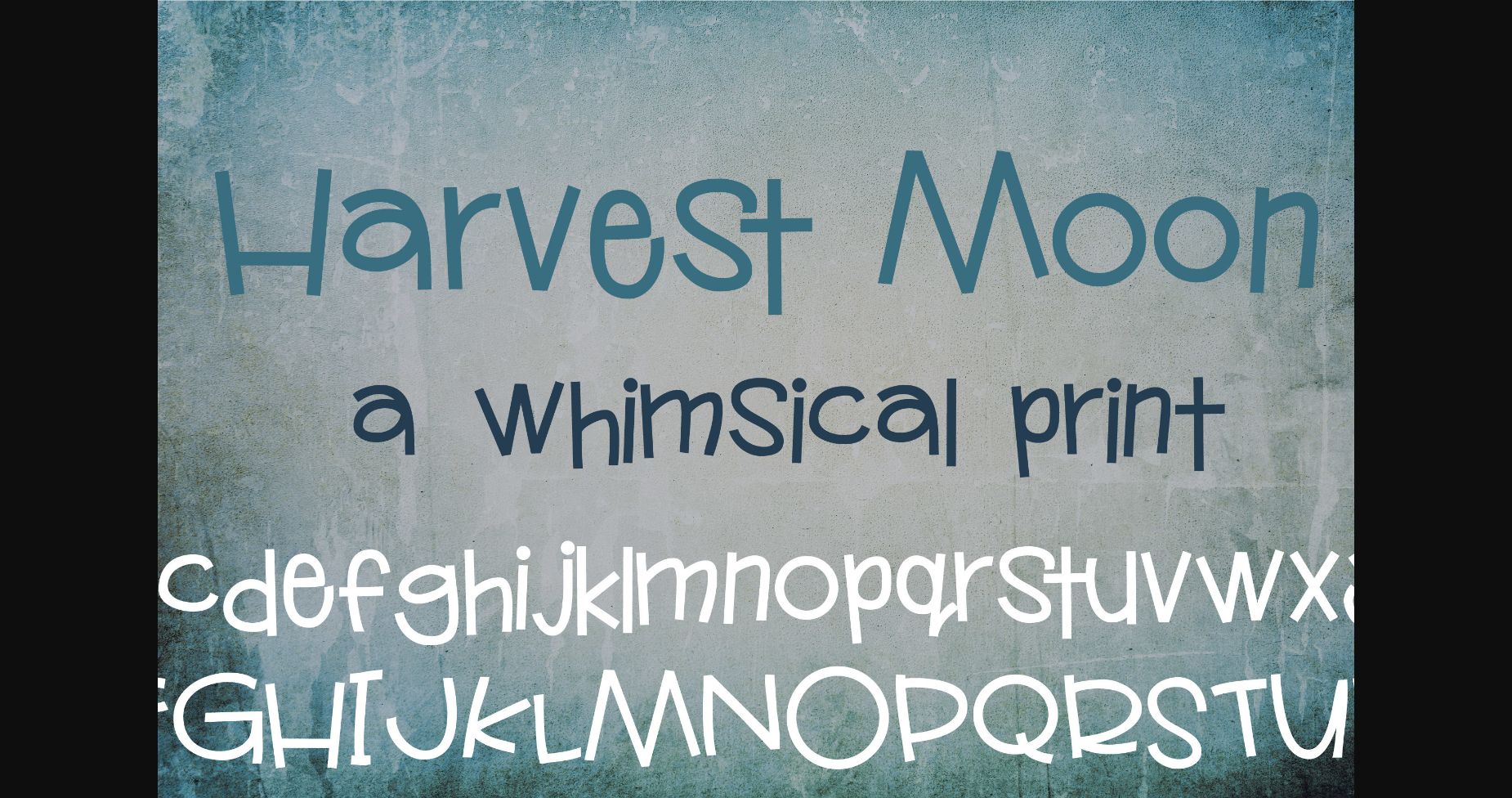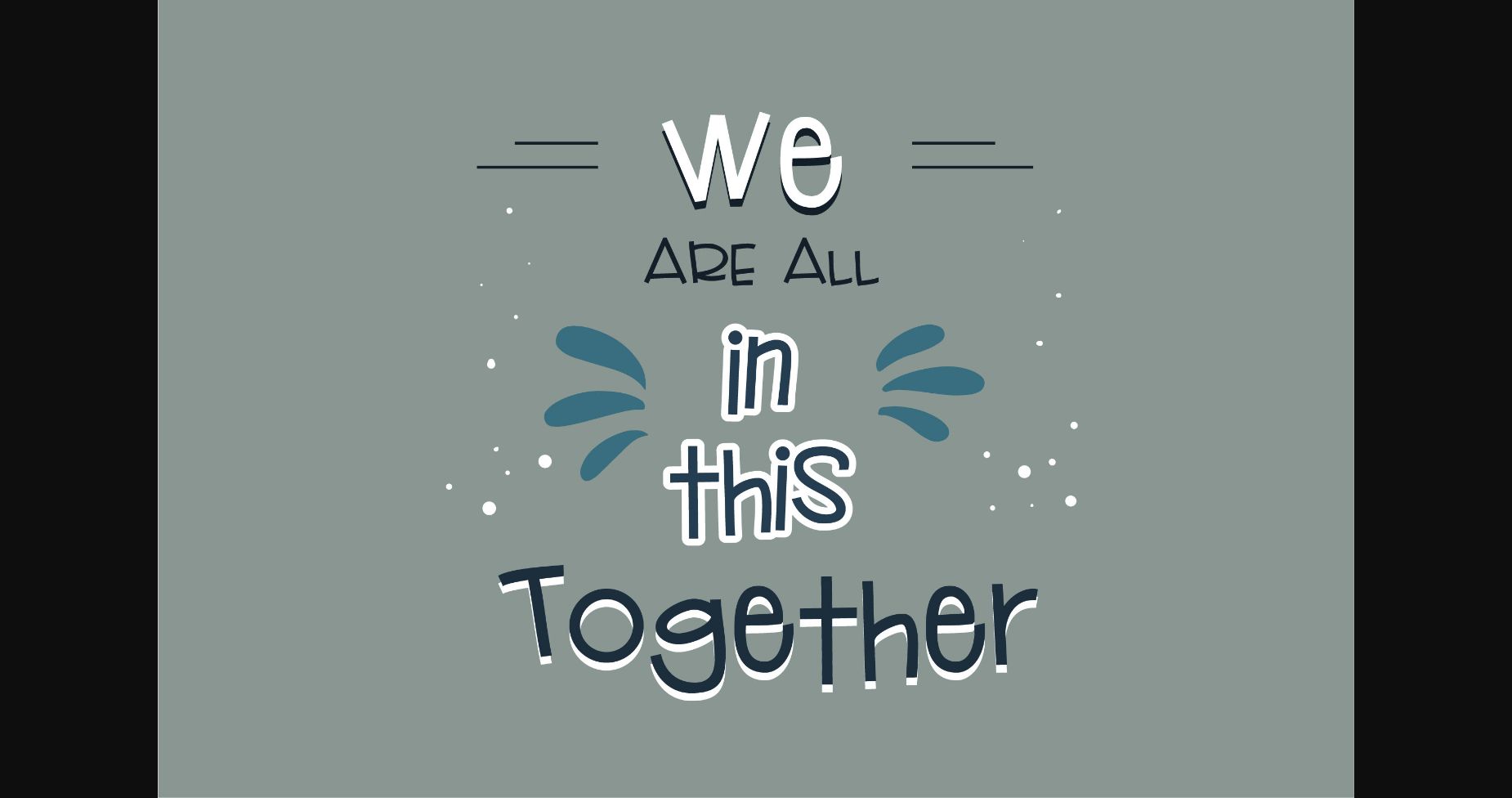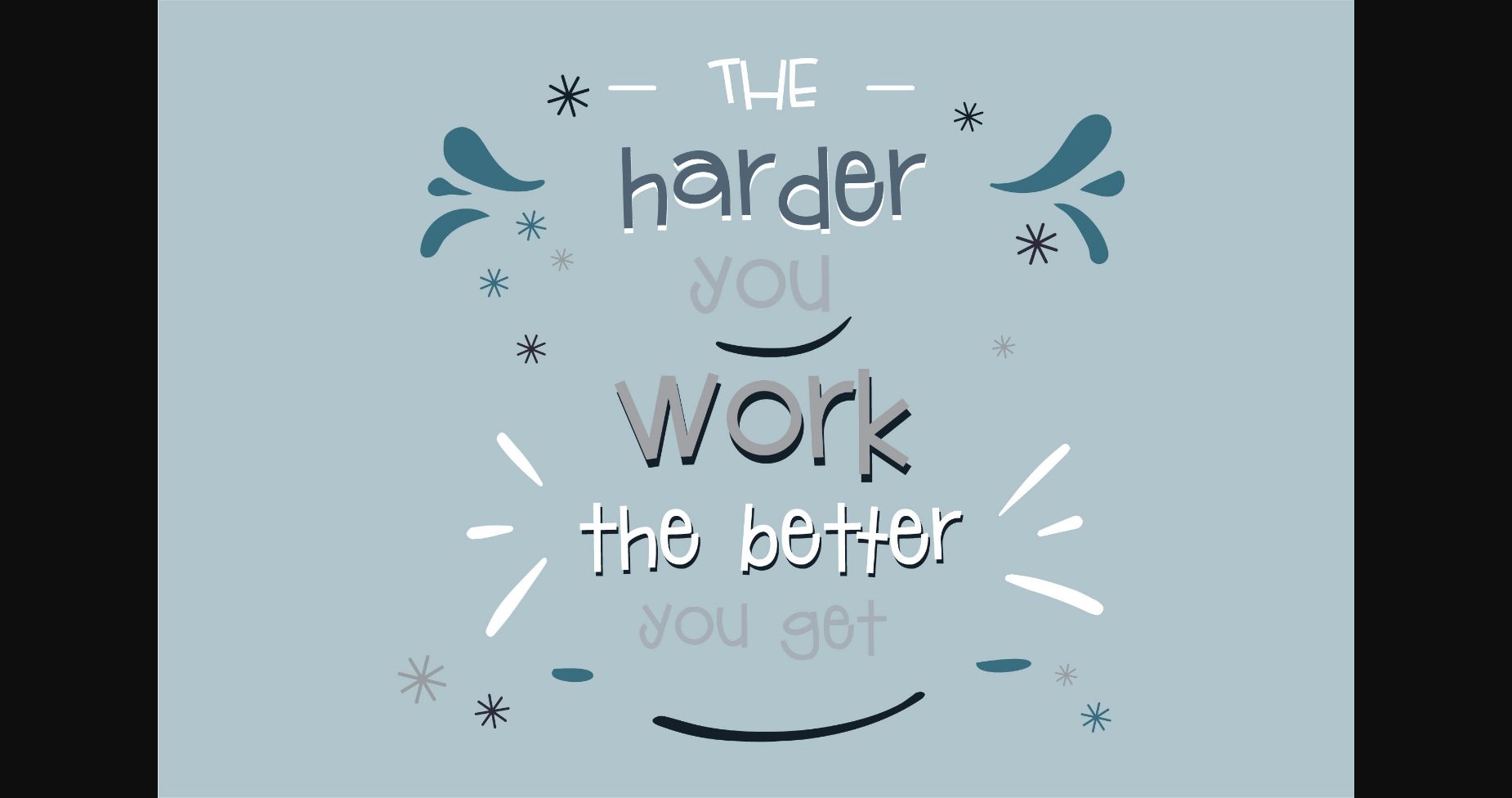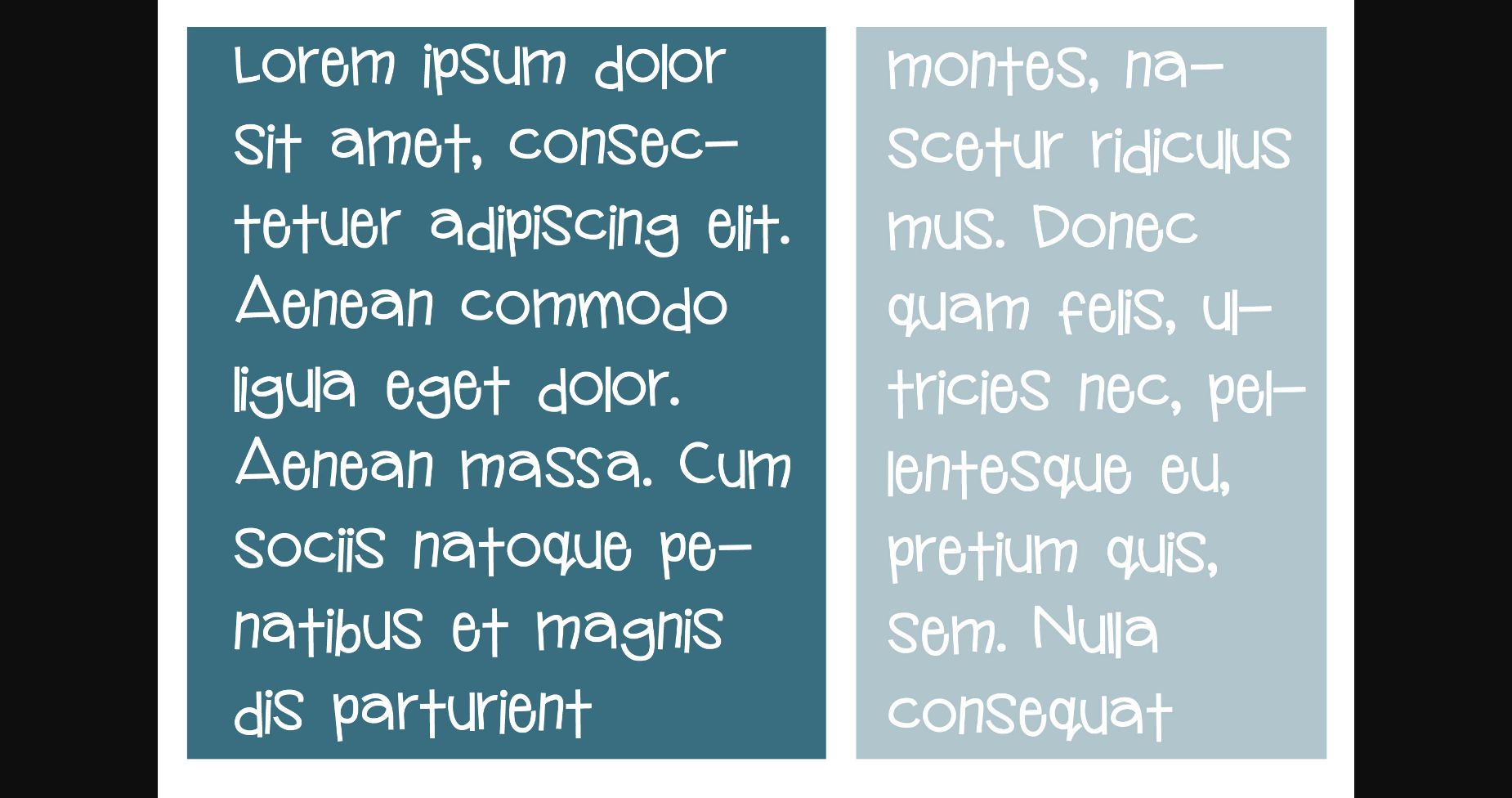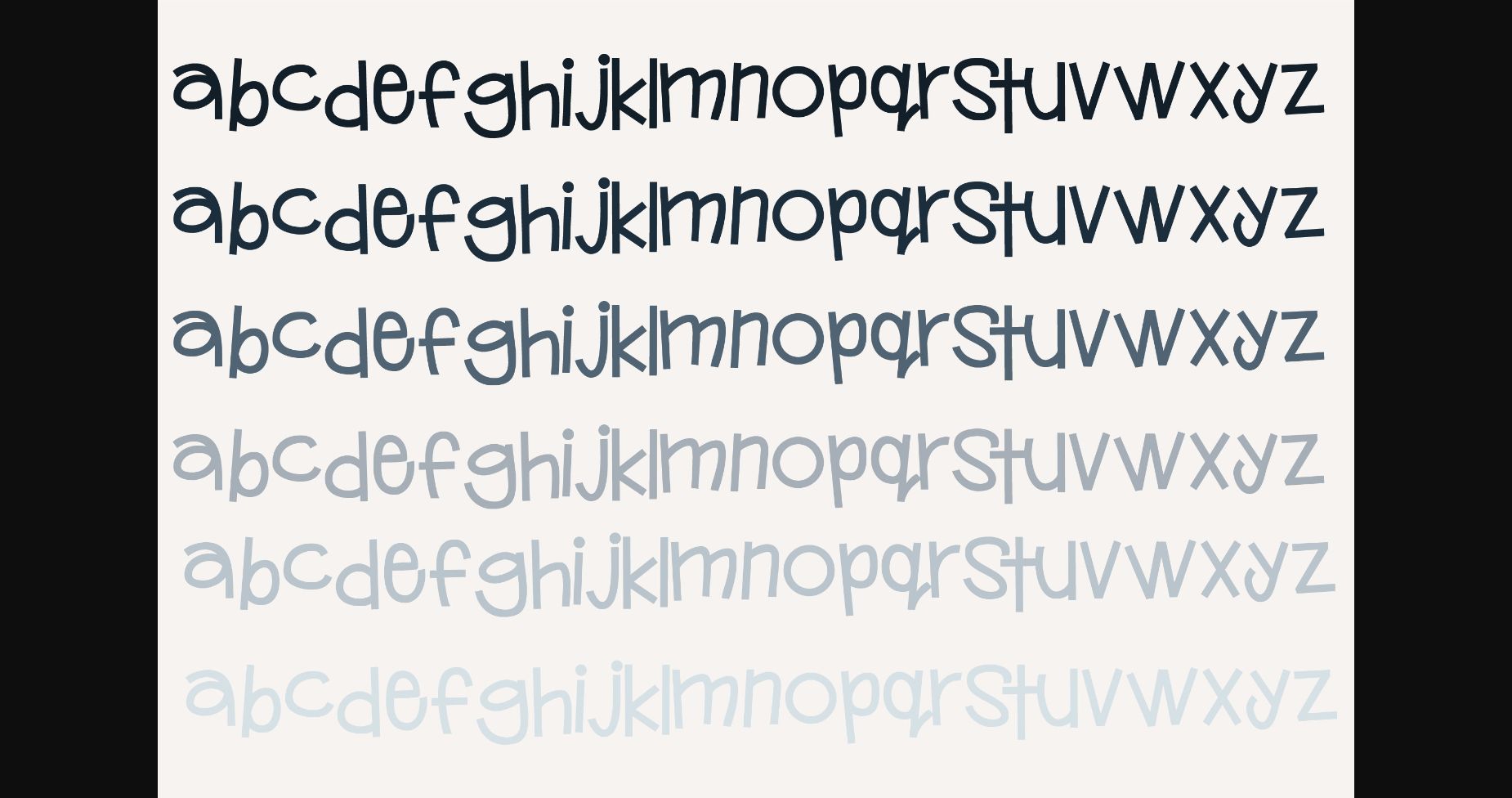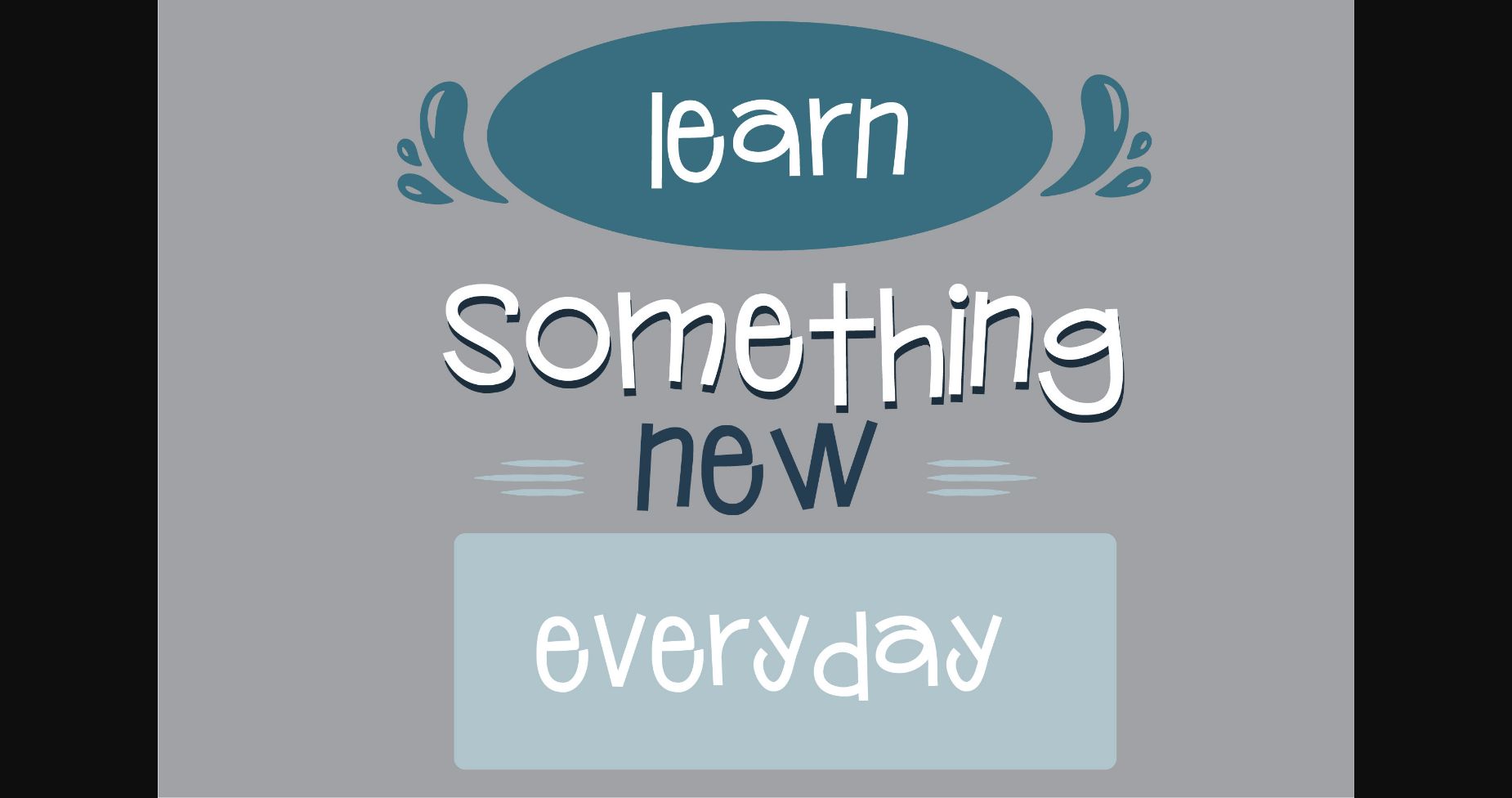
PN Harvest Moon Font
About PN Harvest Moon Font
This casual, hand-written print is a whimsical sans serif, perfect for designs that need a quirky accent.